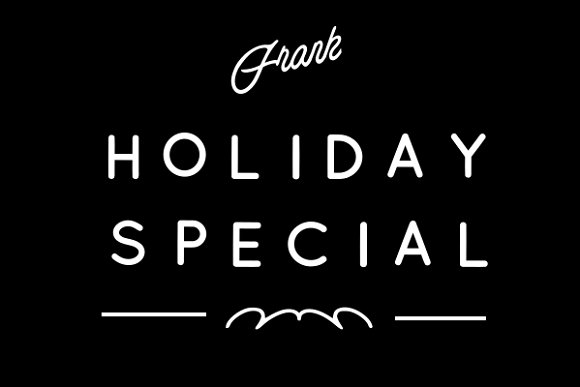
Peer into the world of Frank Font, a display font family that radiates boldness and versatility, conjuring images of strength and adaptability. This captivating creation by Noah Kinard stands out as the most versatile font in its kin, Frankie and Franklin, showcasing a daring personality that demands attention.
Frank Font exudes confidence with its robust structure and assertive lines, making it the perfect choice for headlines, branding, and designs that seek to leave a lasting impression. With its alternate capital and lowercase characters, Frank Font grants you the flexibility to craft unique and eye-catching compositions that resonate with your audience.
Embark on a journey of creativity with Frank Font, allowing your imagination to soar as you explore its endless possibilities. Create logos that command attention, website designs that radiate professionalism, and social media posts that capture the essence of your brand. Frank Font is your steadfast companion, empowering you to communicate with impact and leave an unforgettable mark.
Unleash the power of Frank Font and watch your designs transform into captivating masterpieces. Its versatility knows no bounds, seamlessly adapting to a diverse range of projects, from sleek and modern to vintage and retro. With Frank Font as your creative ally, you'll effortlessly craft designs that resonate with your target audience, evoking emotions and driving engagement.
Experience the transformative power of Frank Font, a font family that embodies boldness, versatility, and impact. Join the ranks of creative visionaries who harness its strength and adaptability to craft truly remarkable designs. Let Frank Font be your guiding light as you embark on a journey of innovation and inspiration.